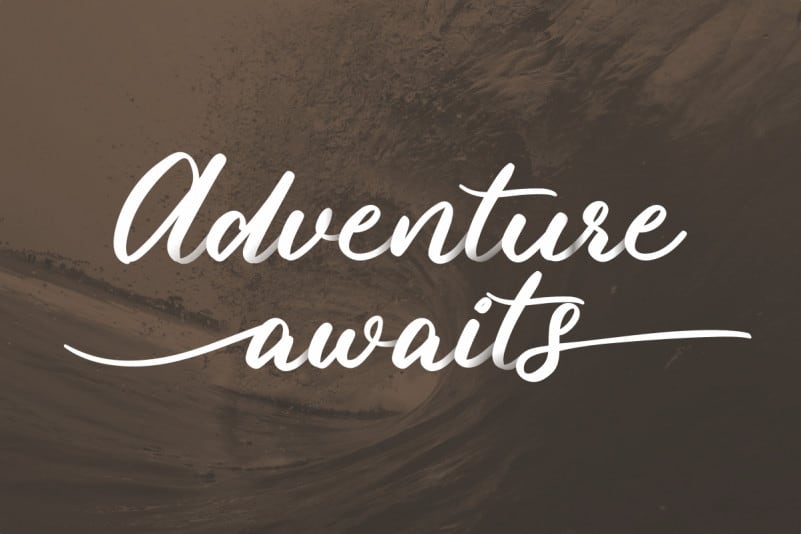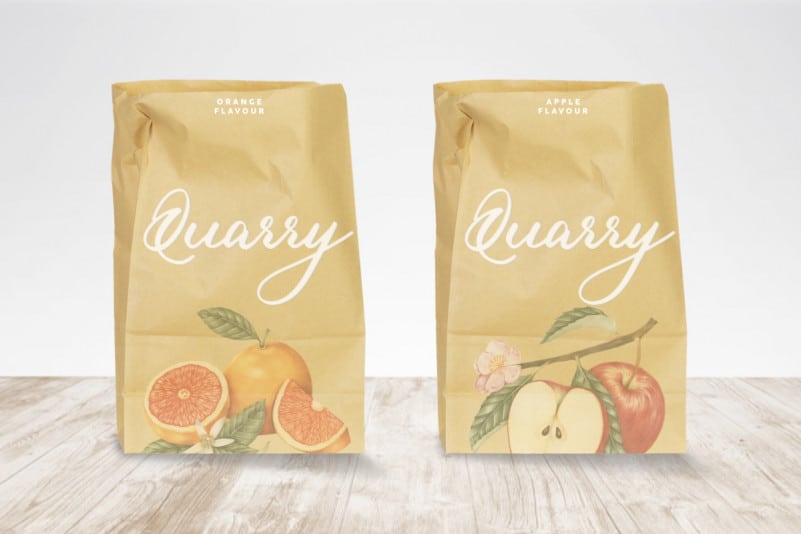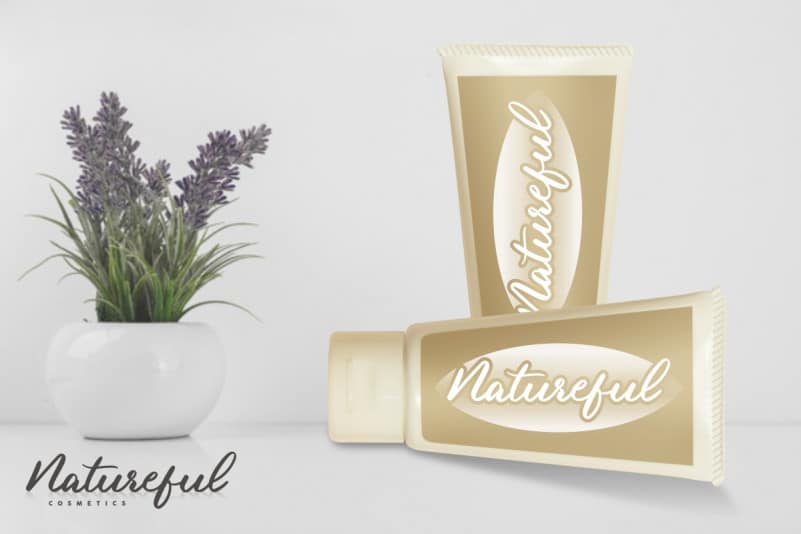
Losemine Calligraphy Font
Losemine Font is a Calligraphy font by RaisProject. With beautiful characters, it will be stunning for any your special projects including : weddings, promotion, events, branding, advertising etc